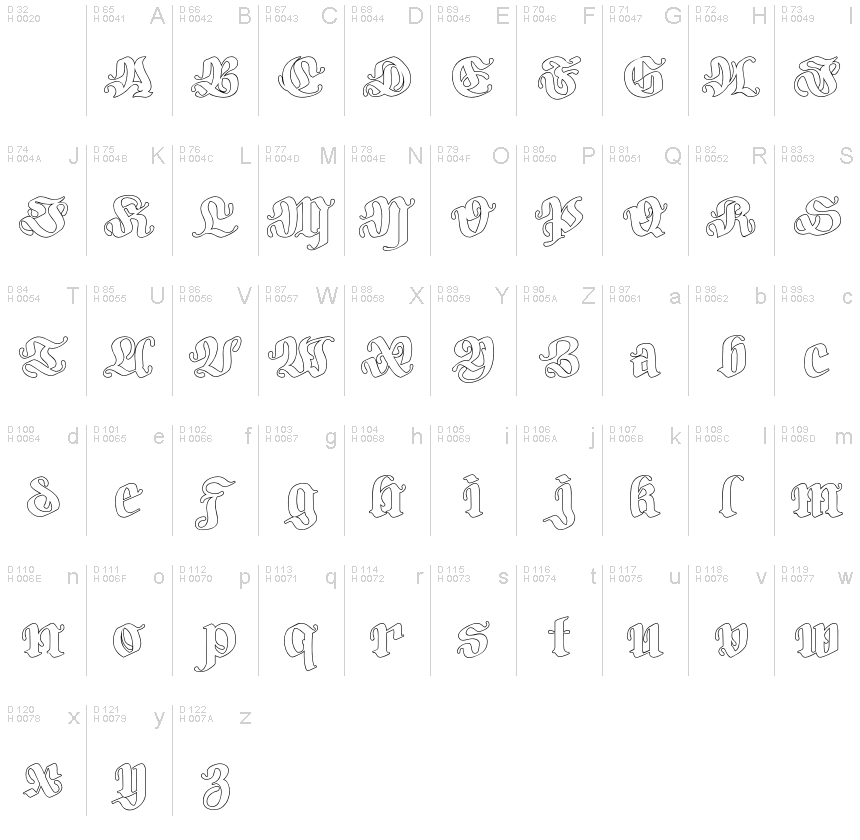
Bodywork Outline, a captivating creation by Dharmas Studio, perfectly encapsulates the timeless allure of gothic aesthetics intertwined with medieval charm. This bold outlined font stands out with its intricate and decorative detailing, making it an eye-catching choice for any design project seeking to evoke a sense of historical grandeur. The unique blend of boldness and elegance in its strokes ensures versatility in high-impact visual contexts such as logos, posters, and headlines.
The distinctive medieval style of Bodywork Outline lends itself beautifully to themed events or branding that emphasizes history and tradition. Its bold outline enhances readability while maintaining an artistic flair, making it ideal for designs that demand attention with a sophisticated edge.